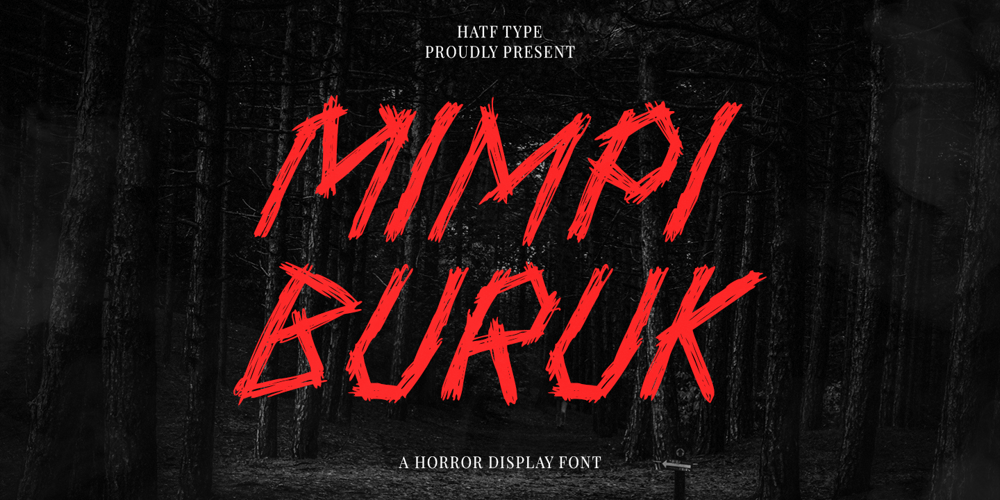
Mimpi Buruk
Mimpi Buruk font
Mimpi Buruk Font Family was designed by Asep Rendi and published by Hatftype. Mimpi Buruk contains 1 styles and family package options. Imagine darkness creeping in, covering every corner with a gripping tension. MIMPI BURUK, a horror display font designed to bring to life the creepy nuances in every letter. Every curve, sharp line, and shadow of this font seems to bring us closer to the nightmares that we don’t want to repeat. This font is inspired by the fear hidden behind closed doors, the sound of creaking in the middle of the night, and the whispers of the subconscious.With its rough, scratched aesthetic and mysterious aura, MIMPI BURUK is suitable for horror movie posters, thriller book covers, and designs that require a dark and scary touch. Each letter feels like it is carved from shadow and darkness, creating a real atmosphere of terror.Make your design a gateway to horror with MIMPI BURUK, a font that turns every word into an inescapable threat. Get ready, because the nightmare has just begun.